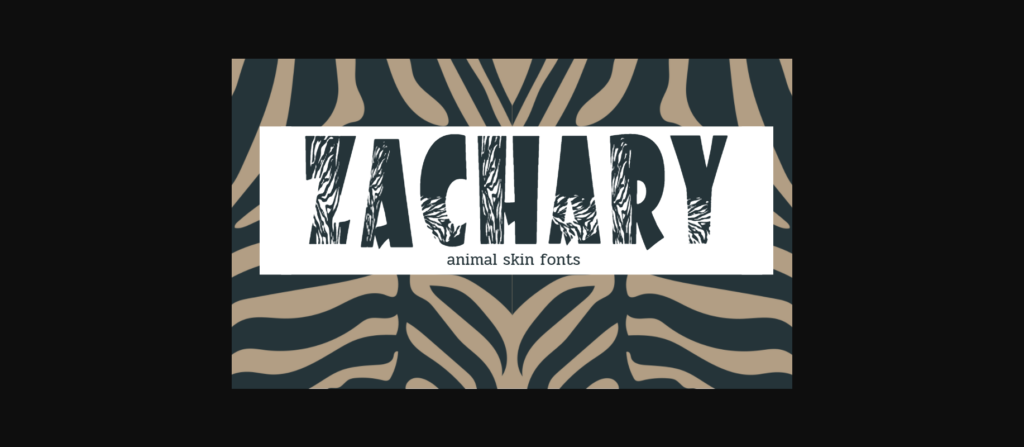
About Zachary Font
Zachary is fresh and modern decorative font.
It’s great for headlines and other places where you want to create a big impression with an African animal theme.